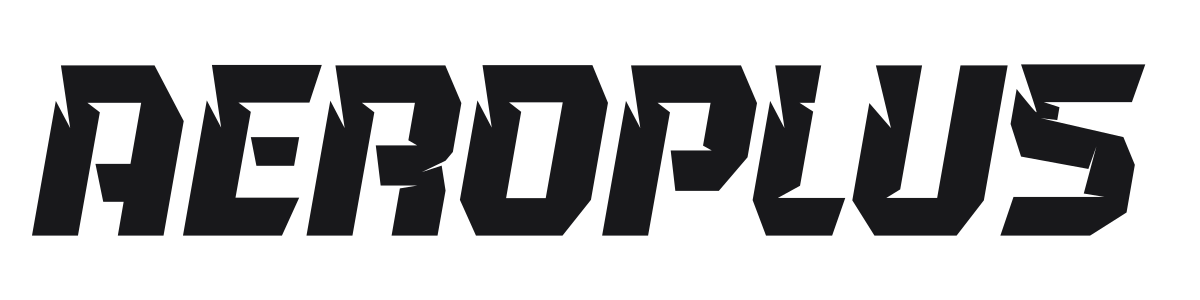
Aeroplus
Aeroplus is a heavy condensed italic display face built around aggressive angular distressing that fractures stems and strokes with sharp, deliberate cuts. The bold weight and strong forward slant give it relentless momentum, making it feel like something from a military briefing or action film title sequence. It works best at large sizes where the fractured details read clearly.